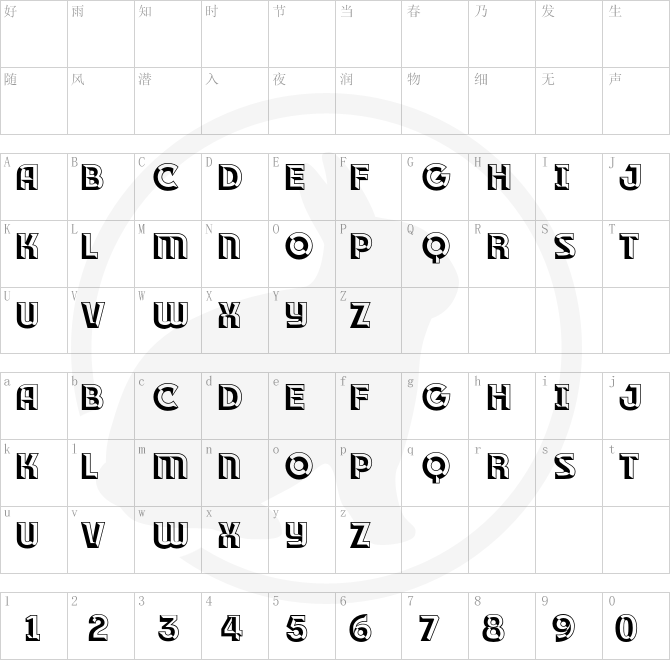
- Font Name:RACE1 Brannt Plus Chiseled NCV
RACE1-Brannt-Plus-Chiseled-NCV.otf is a very beautiful artistic font, RACE1-Brannt-Plus-Chiseled-NCV.otf is widely used in the design and printing of various books and pictures,RACE1-Brannt-Plus-Chiseled-NCV.otf has a strong visual impact,RACE1-Brannt-Plus-Chiseled-NCV.otf is a commonly used font in newspapers, magazines and books, and is used in posters, e-commerce Poster design, store design, logo design, font design and other fields.RACE1-Brannt-Plus-Chiseled-NCV.